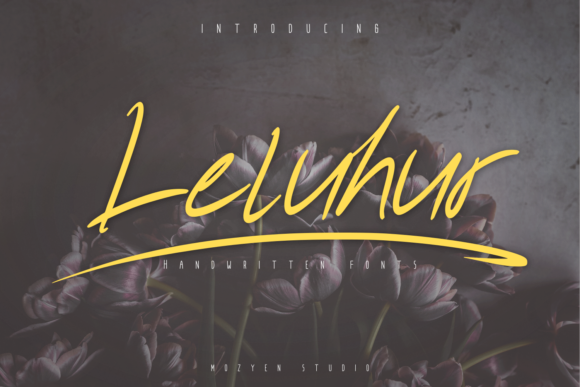
Dive into the world of Leluhur Font, a captivating script font family designed to ignite your creativity and elevate your designs. With its enchanting handwritten charm, Leluhur captivates the senses, leaving an indelible mark on your projects.
Step into a realm of elegance and sophistication as Leluhur's flowing strokes dance across your designs. Each letter, meticulously crafted with a varying baseline, smooth lines, and gorgeous glyphs, exudes a sense of artistry and uniqueness. The font's stunning alternates provide endless possibilities for customization, allowing you to tailor your designs to perfection.
Whether you're crafting heartwarming wedding invitations or expressing gratitude with personalized thank you cards, Leluhur's versatile charm shines through. Its graceful presence adds a touch of romance and charm to every word, making your designs truly unforgettable.
Unleash your creativity and let Leluhur take center stage in your quotes and greeting cards. Its delicate strokes and enchanting flow bring life to your words, inviting readers to immerse themselves in the beauty of your messages.
For businesses seeking to leave a lasting impression, Leluhur is the perfect choice for logos and business cards. Its distinctive character adds a touch of professionalism and sophistication, ensuring your brand stands out from the crowd.
Leluhur's versatility extends beyond traditional design realms. Its captivating nature makes it an ideal font for social media platforms, particularly Instagram. Let your posts and stories come alive with Leluhur's charm, capturing the attention of your audience and leaving them captivated.
Embrace Leluhur Font and embark on a creative journey like never before. Its enchanting beauty and versatility will transform your designs, adding a touch of magic to every project you undertake. Experience the power of Leluhur and let your creativity soar.